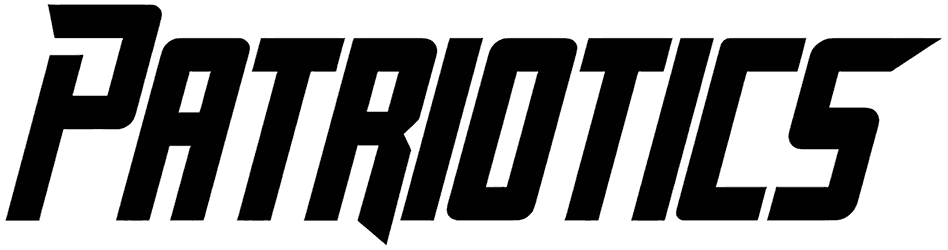
Patriotics Font
Make long-lasting designs with Patriotics, an authentic tech font with lots of energy. It has a bold, italic display and injects a dynamic, speedy touch to your work in a stable way that attracts all attention rapidly.
This font comes with two types of uppercase letters, but lowercase letters, numerals, and punctuation are not supported. You can use it for action movie posters, video games, sports logos, apparel prints, and advertising aims.